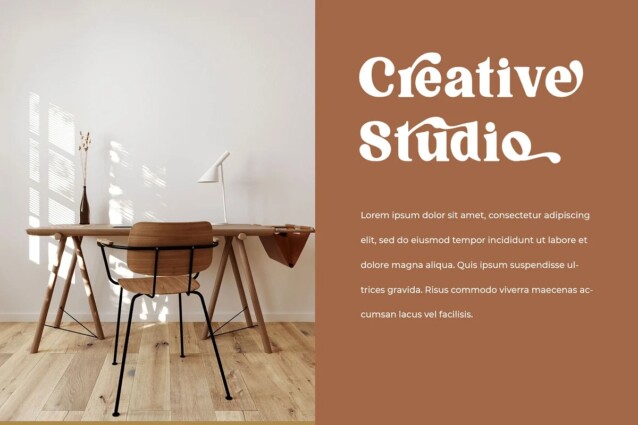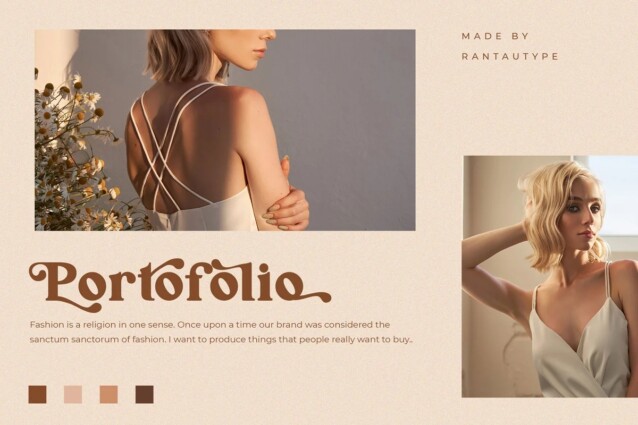
Laurasia Font
Laurasia Font is a rounded flare serif display font manufactured by Rantautype. It’s thick curves give a 70s groovy vibe with the serifs bringing it slightly back to traditional
Laurasia fits perfectly into those nostalgic moodboards and vintage logos. It come with a unique lower and uppercase plus numbers and punctional. Laurasia also have more alternate so you can get creative with more optional.